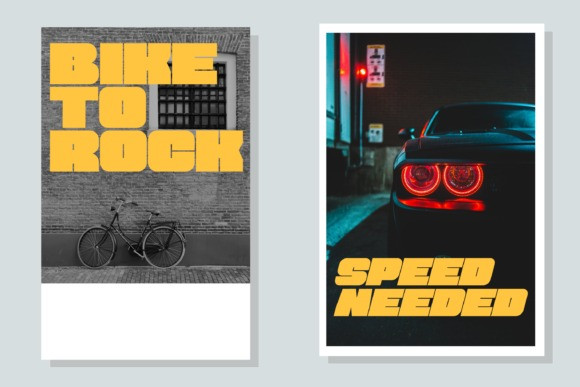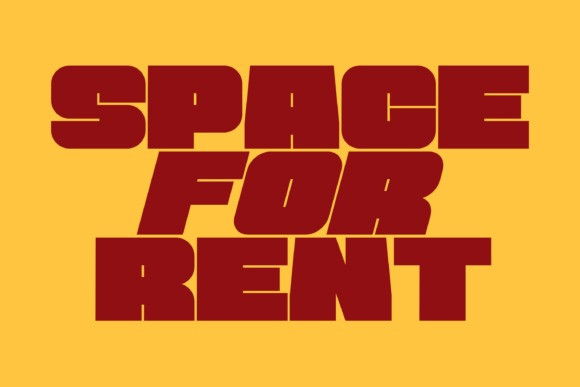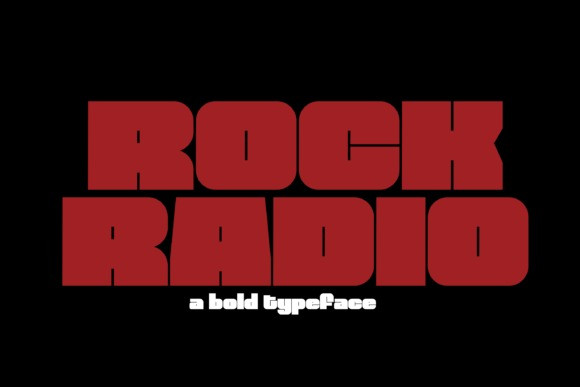
Rock Radio Sans Serif Font
Rock Radio is a bold sans serif font with exciting characters. It comes in regular and slant style, completed with some ligatures and multilingual features. It is perfectly suited for a wide variety of projects like posters, book covers, apparel, merchandise, book cover, social media project and branding, and many more. add this font to your project, and it will be stunning!